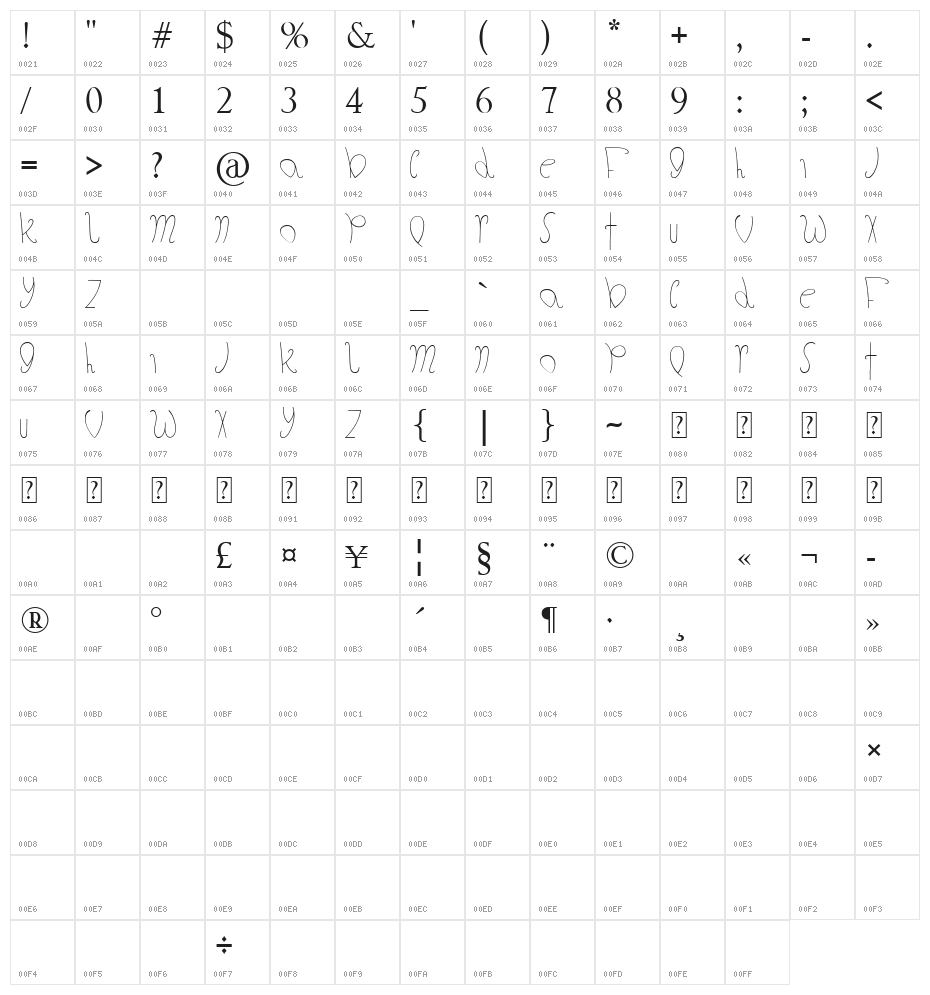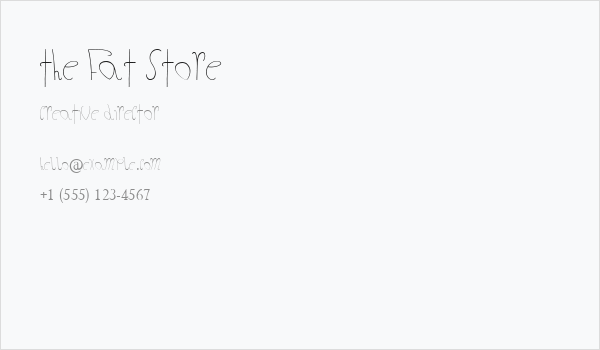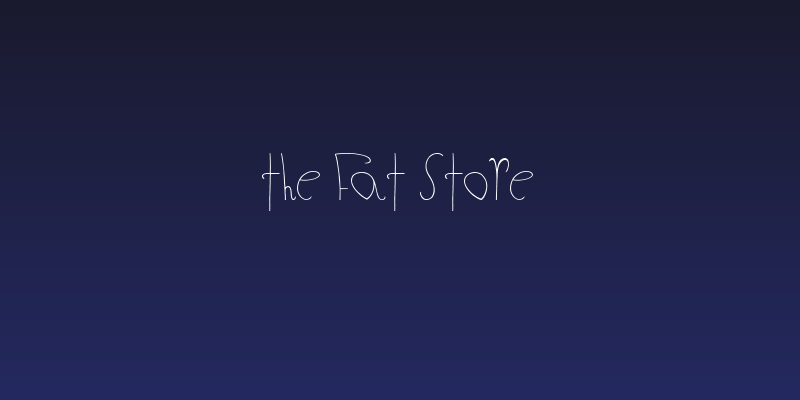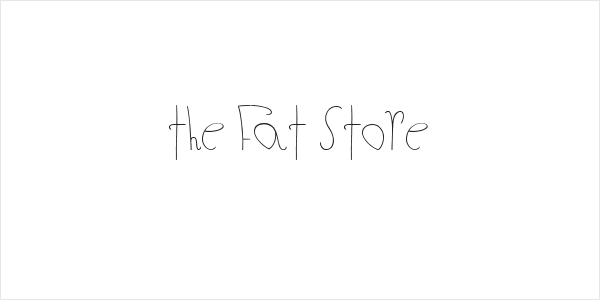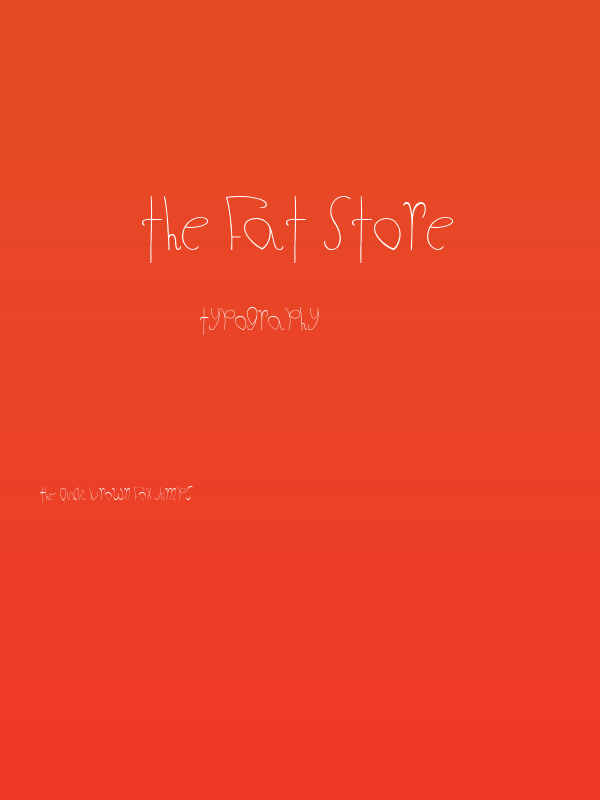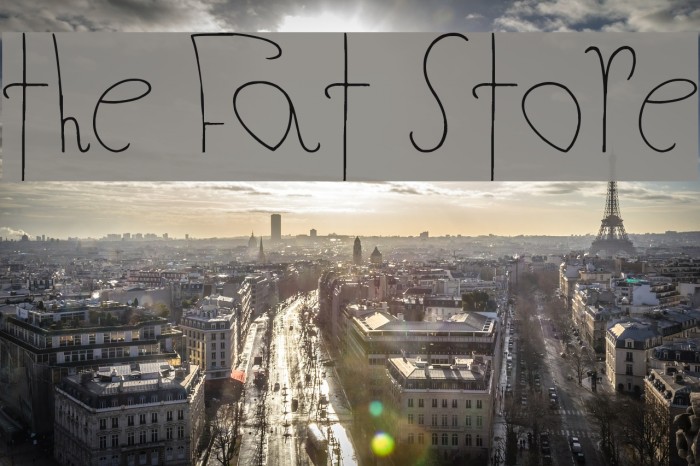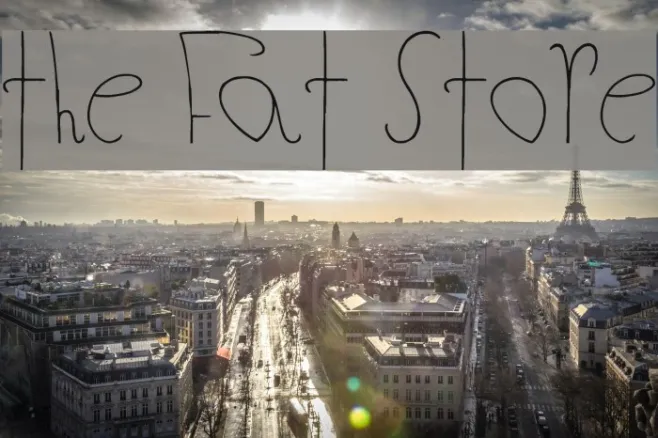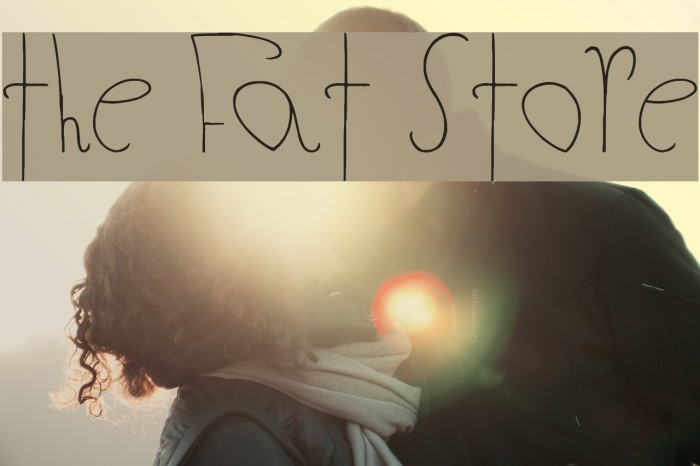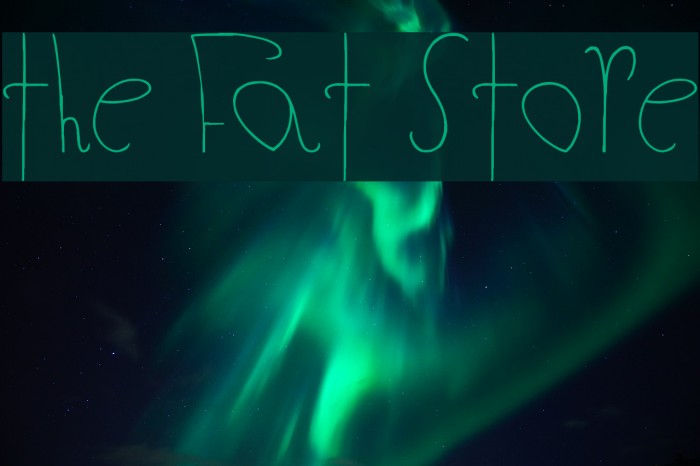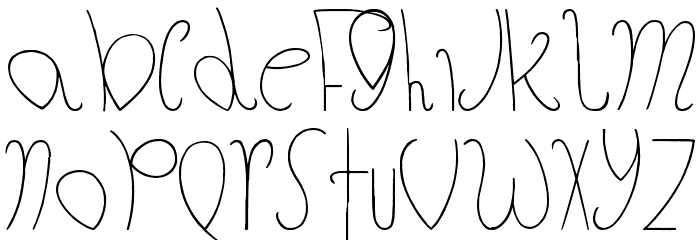
The Fat Store Font
The Fat Store Description
This font features a whimsical and playful design, characterized by its tall, slender letterforms with exaggerated curves and loops. The uppercase and lowercase letters maintain a consistent style, with a unique flair that adds a touch of elegance and creativity. The numerals are distinct and maintain the same playful aesthetic, making them easily recognizable. Special characters are designed with the same attention to detail, ensuring a cohesive look across all glyphs. The overall appearance is both artistic and modern, making it suitable for a variety of creative applications.
| Use Case | Logos, Posters, Invitations |
| Proposed Projects | Ideal for children's books, creative branding, playful invitations, and artistic posters. |